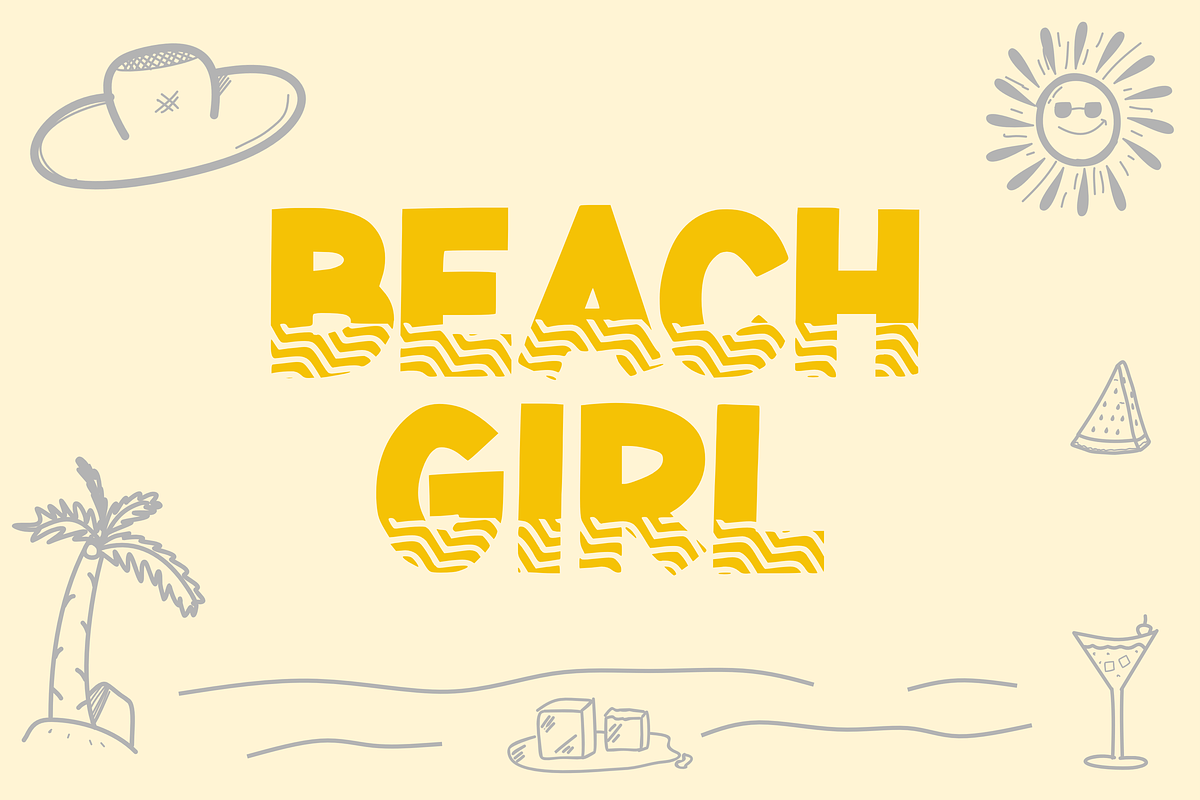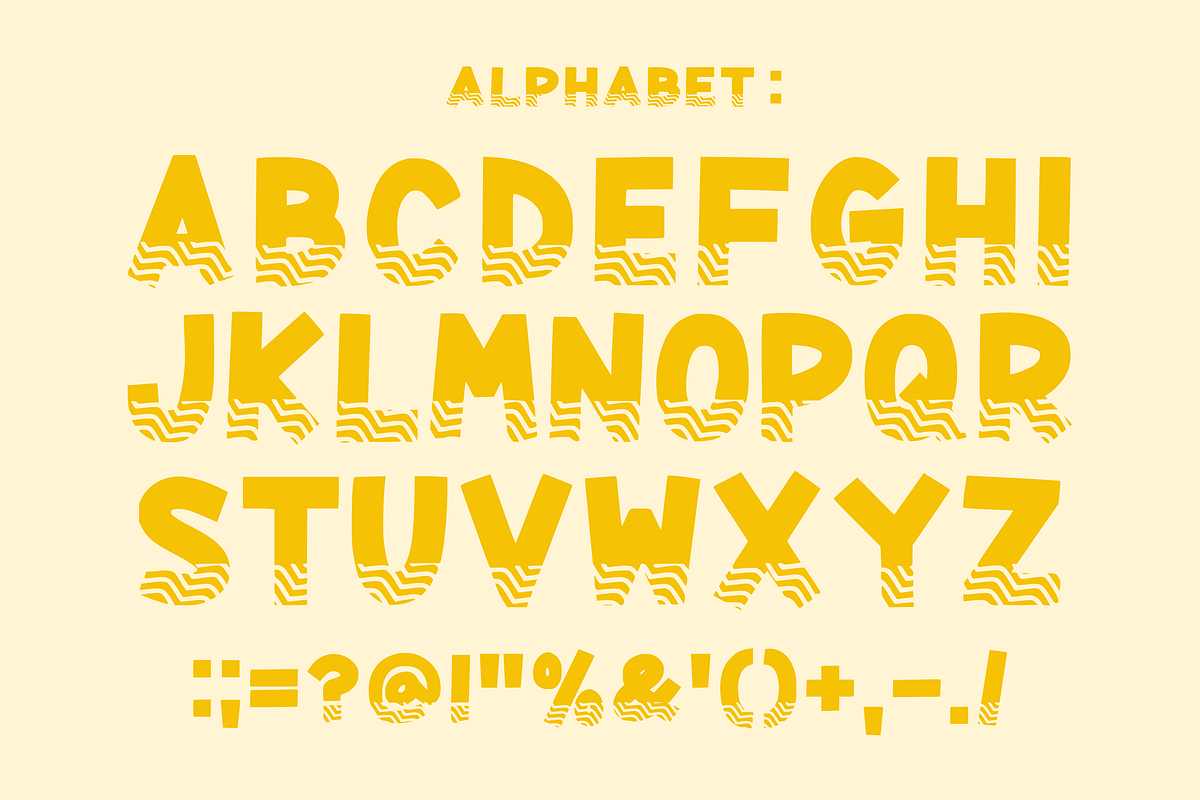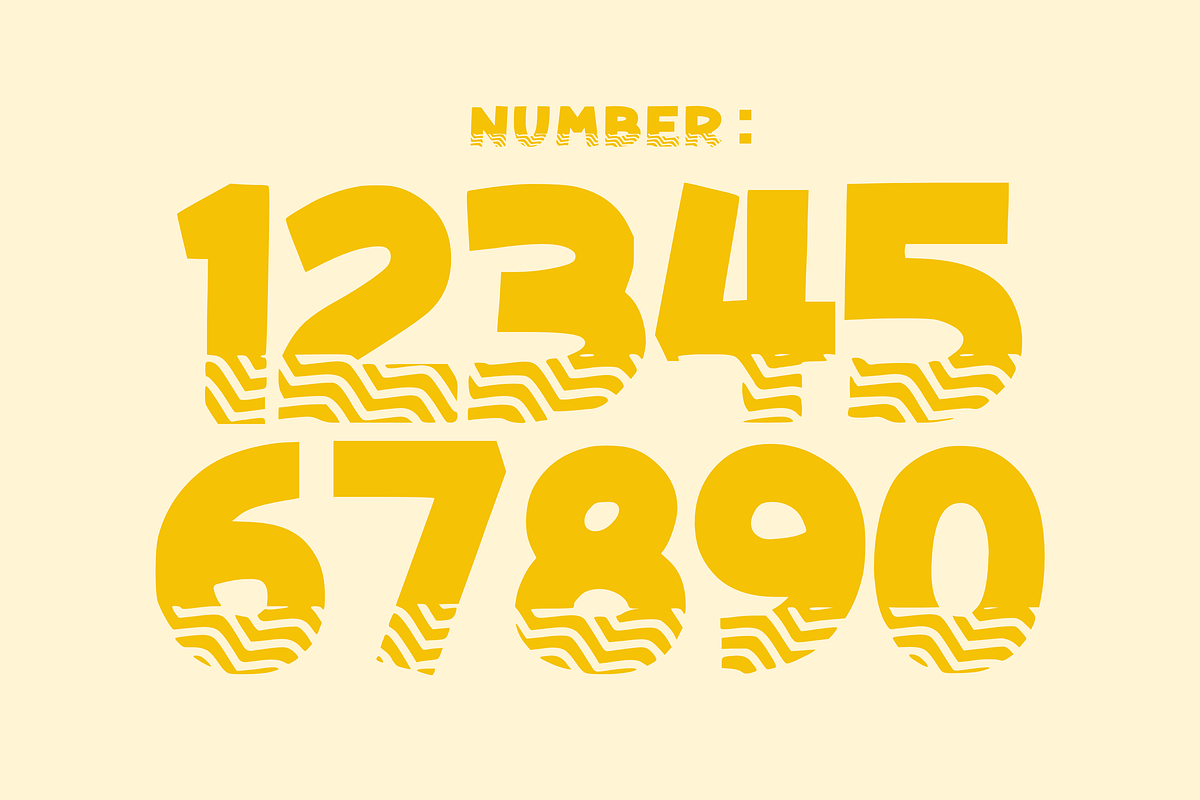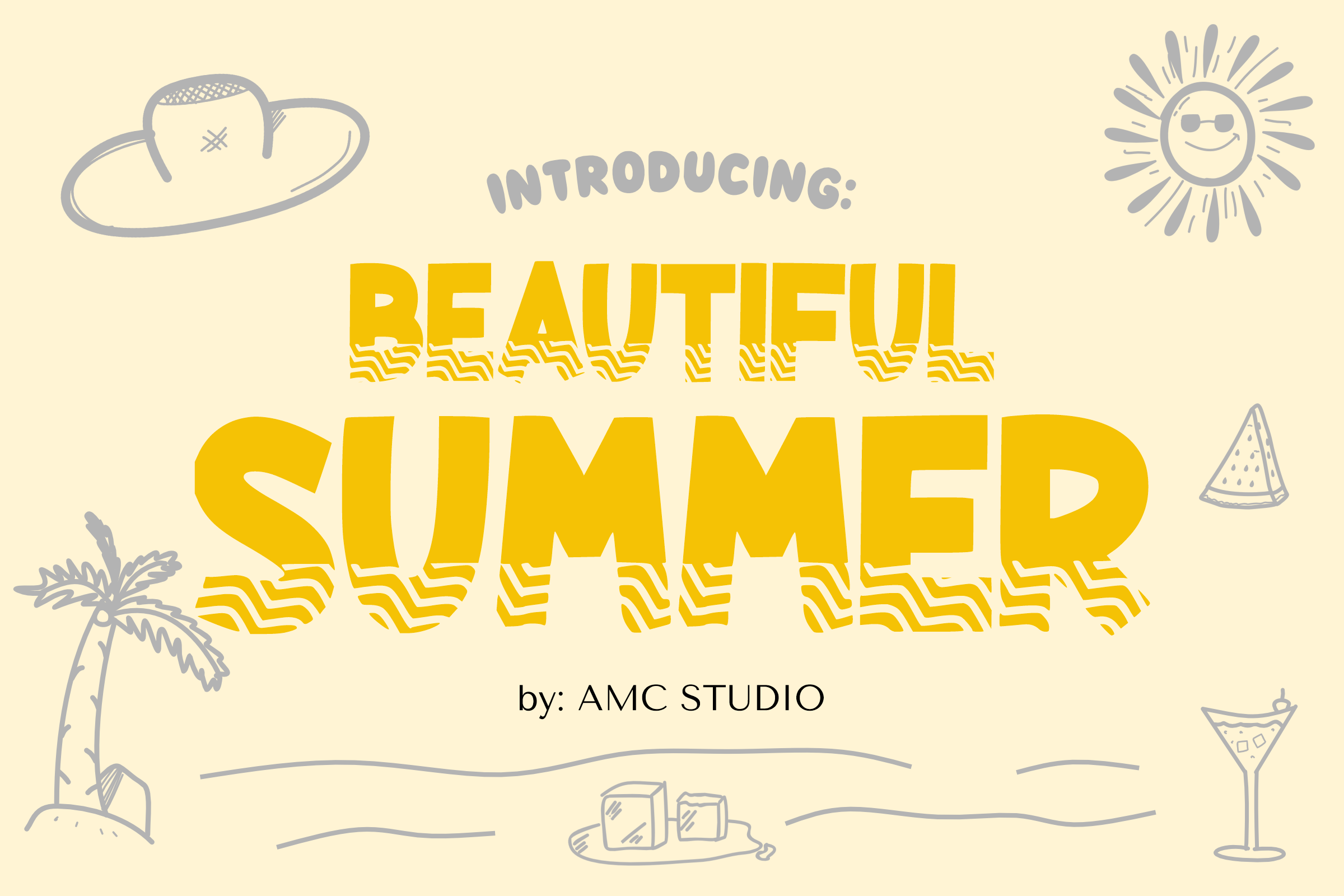
Beautiful Summer - Summer Font Types
Discover “Beautiful Summer,” an exceptional, summertime-inspired font. This original typeface breathes life into comic books, invigorates stickers, banners, greeting cards, and adds a dash of fun to t-shirt screen prints. With its appealing allure and standout style, “Beautiful Summer” brings an added layer of creativity to your designs, infusing them with a vibrant, summer energy. Elevate your work, let your creativity blossom, and feel the warmth of “Beautiful Summer”.